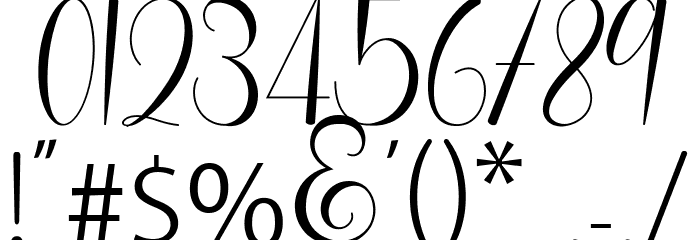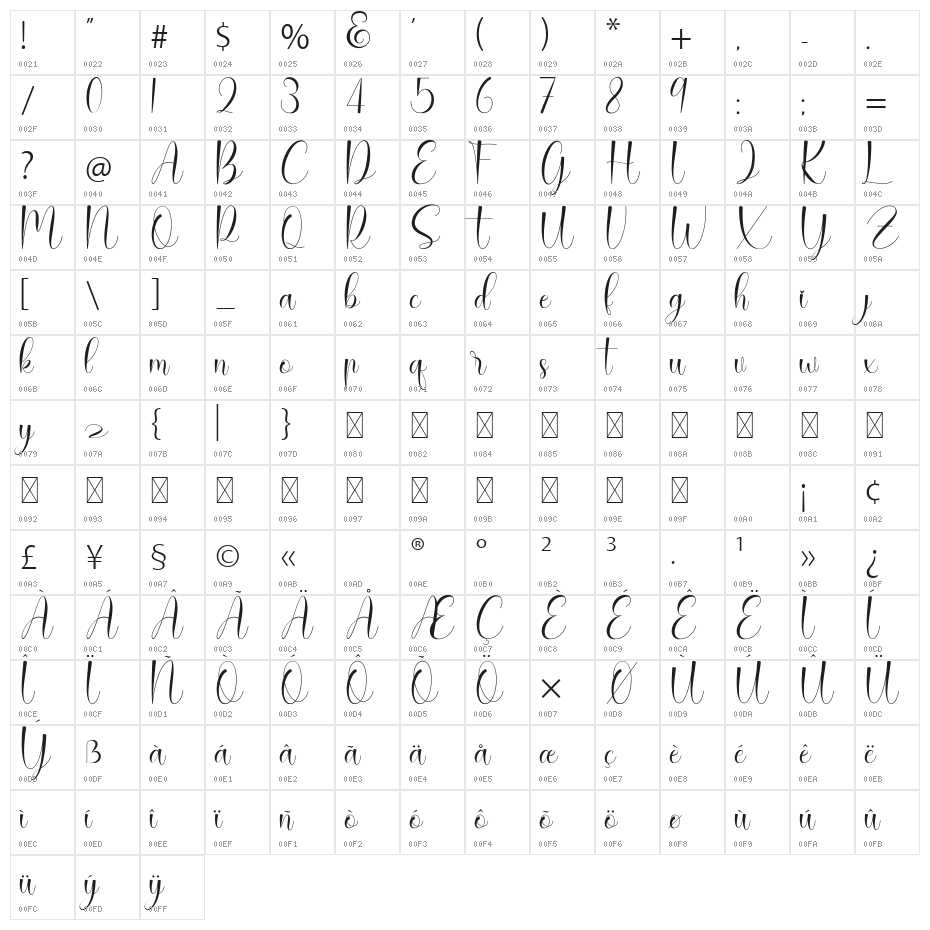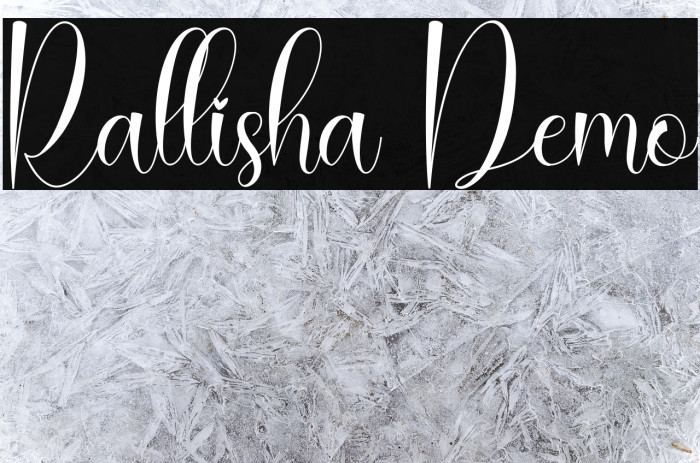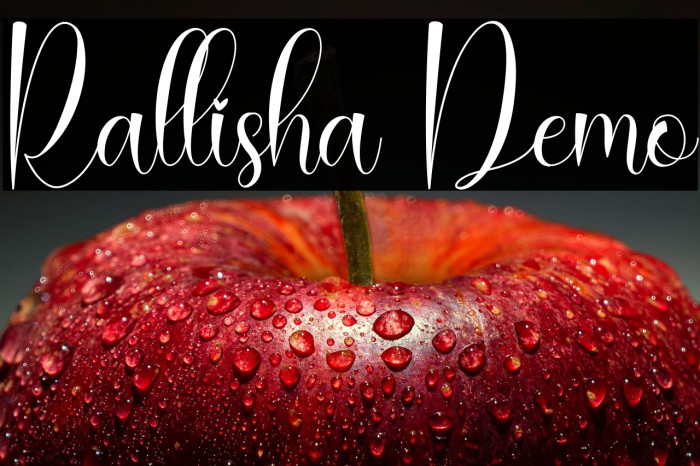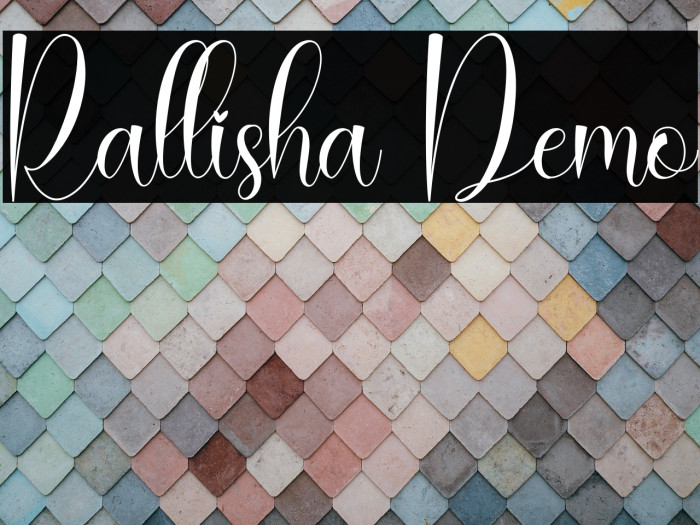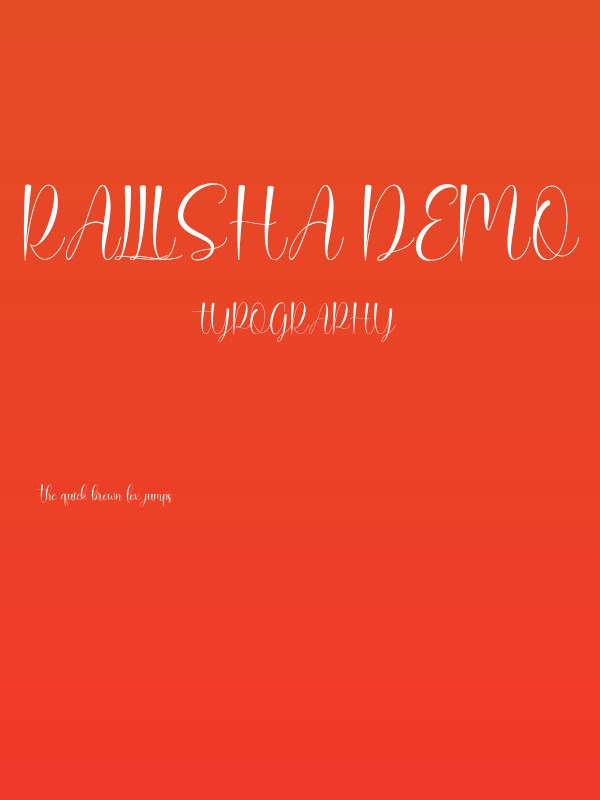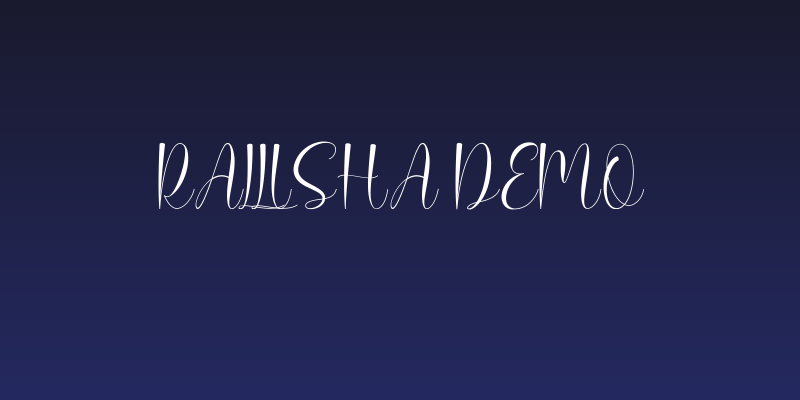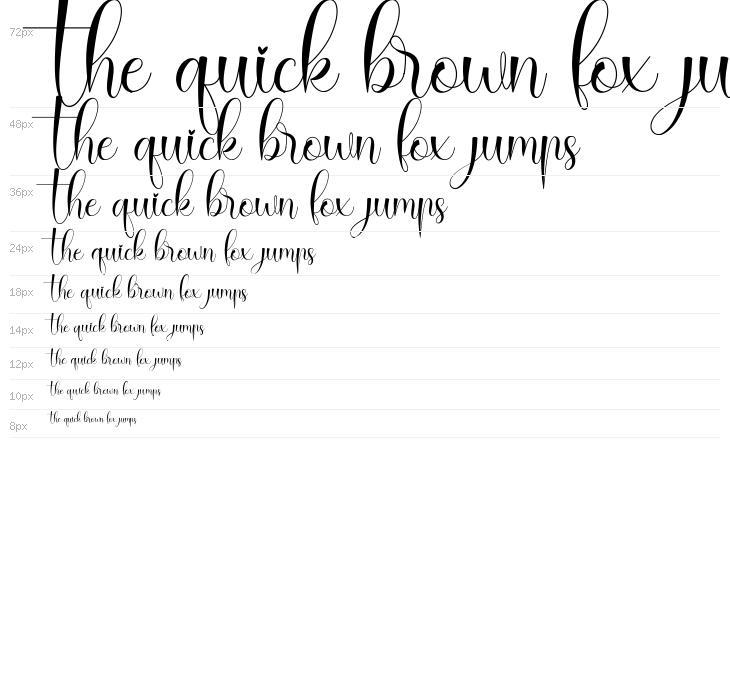
Rallisha Demo Font
Rallisha Demo Description
This font features an elegant and flowing script style, characterized by its smooth, cursive strokes and graceful curves. The uppercase letters exhibit a sophisticated flair with elongated ascenders and descenders, creating a sense of movement and fluidity. The lowercase letters maintain a consistent style, complementing the uppercase with their rounded forms and delicate loops. The numerals are designed with a similar elegance, offering a cohesive look across all characters. Special characters are thoughtfully integrated, maintaining the font's overall aesthetic. This font is ideal for projects that require a touch of sophistication and elegance.
| Proposed Projects | Wedding invitations, luxury branding, elegant packaging, greeting cards, and decorative signage. |